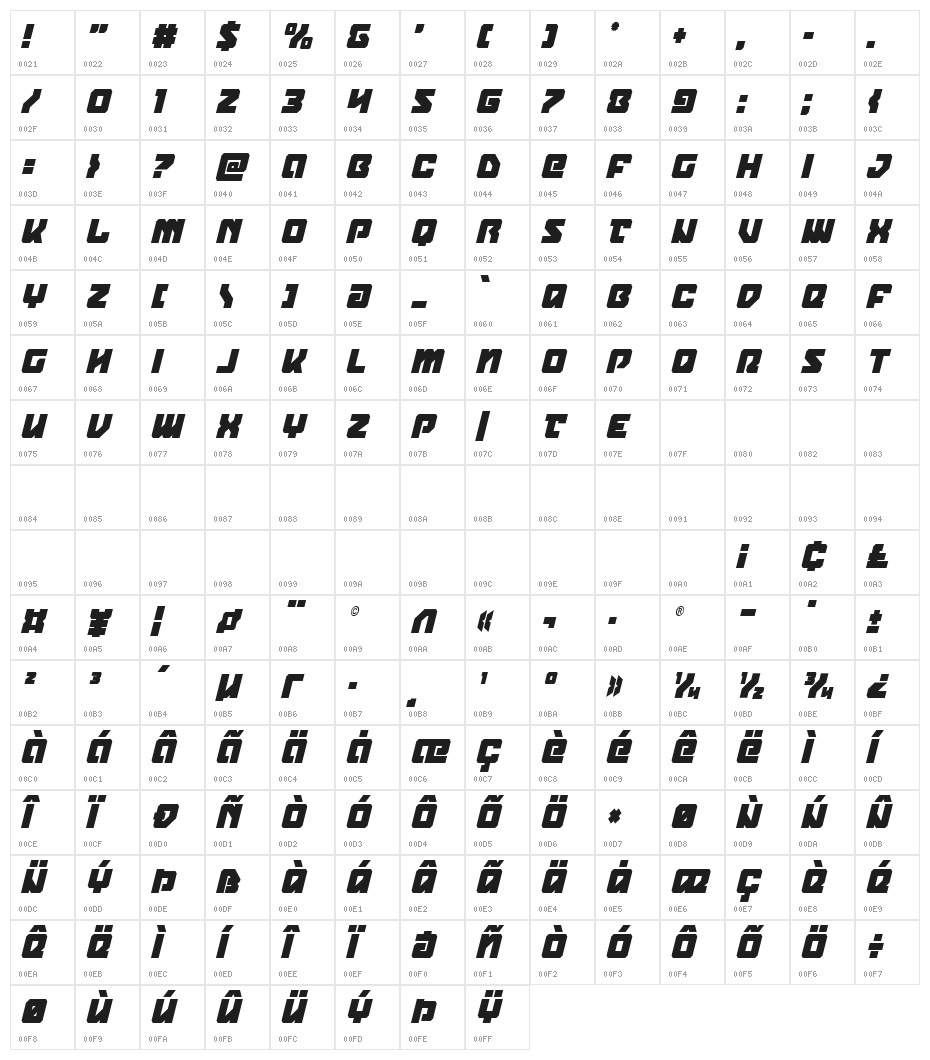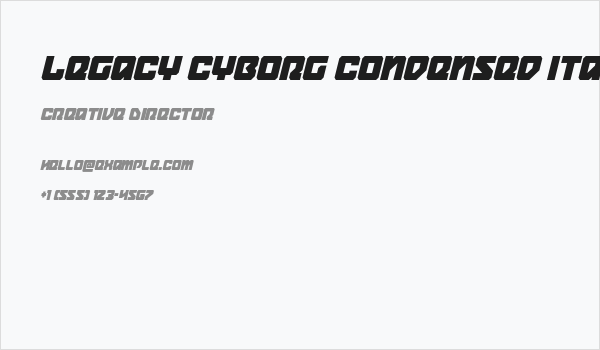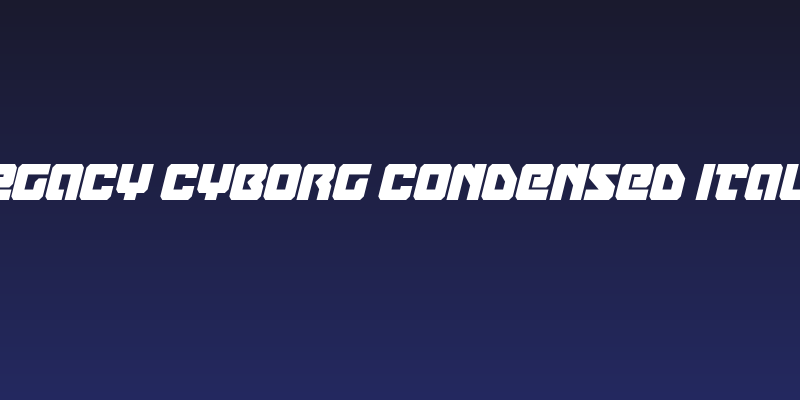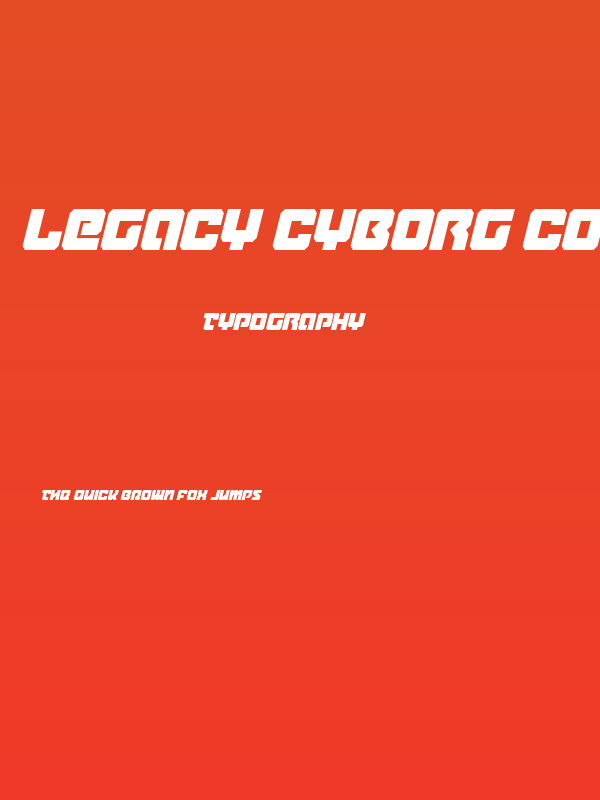
Legacy Cyborg Condensed Italic Font
This font features a bold, futuristic design with a distinct italic slant, giving it a dynamic and forward-moving appearance. The characters are condensed, enhancing the compact and efficient look. The angular, geometric shapes of the letters convey a sense of modernity and technological advancement. The thick strokes provide a strong visual impact, making it suitable for attention-grabbing headlines or titles. The unique style of the font suggests a cybernetic or digital theme, ideal for projects related to technology, gaming, or science fiction.
| Proposed Projects | Ideal for technology-themed designs, gaming titles, sci-fi posters, and digital media branding. |